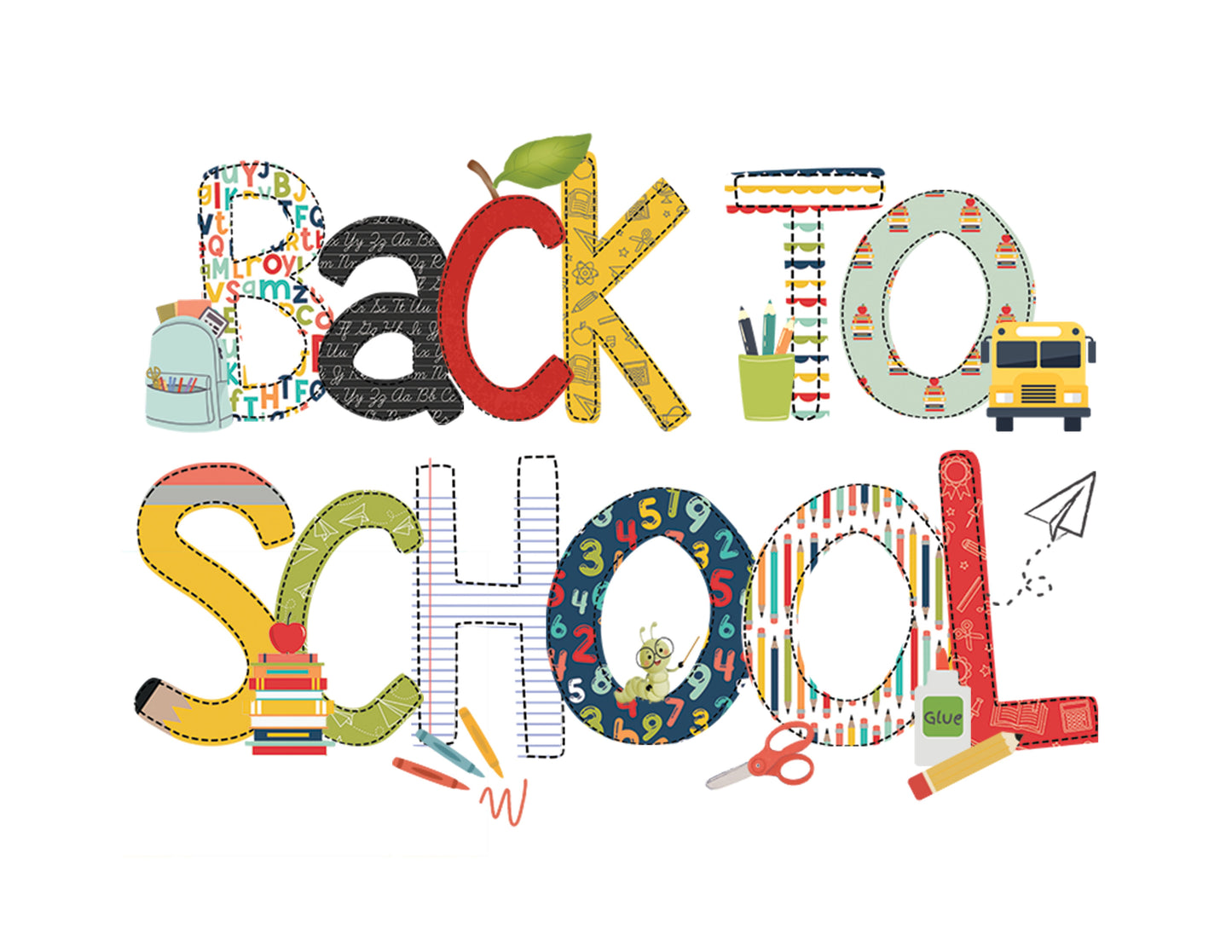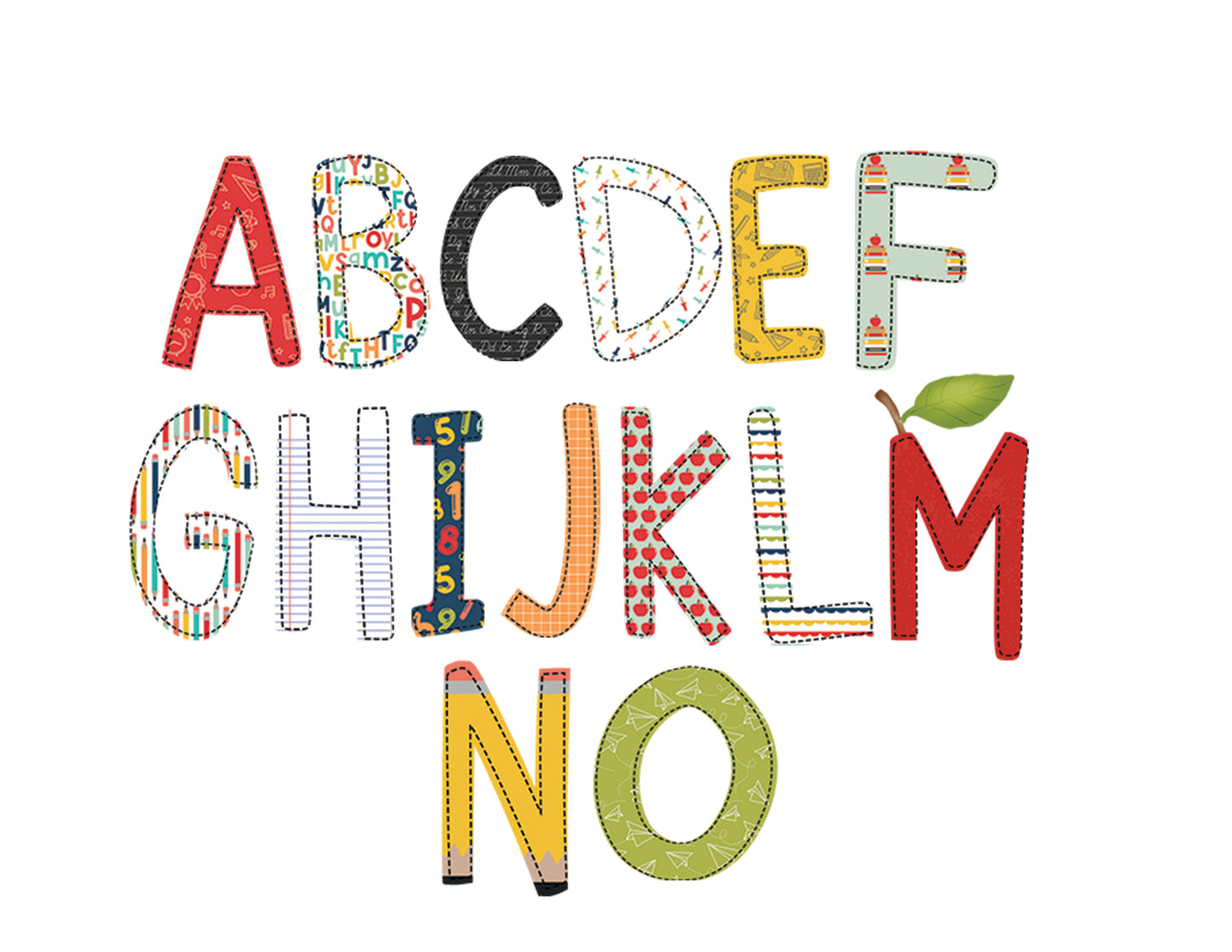
Back to School Alpha Font
Our back-to-school PNG digital alpha font is perfect for any back-to-school project. This sent includes 15 full pattern sets and over 20 matching elements to finish the look.